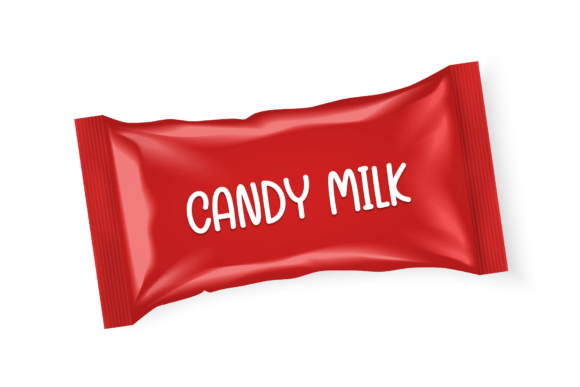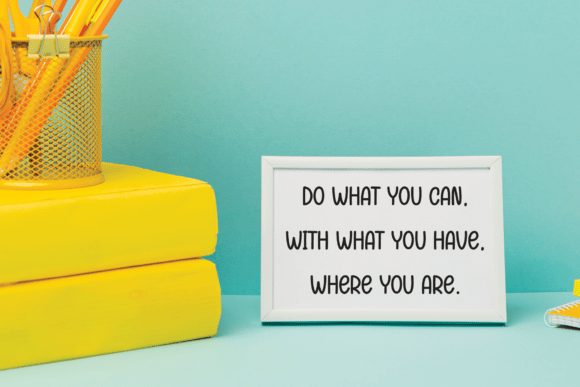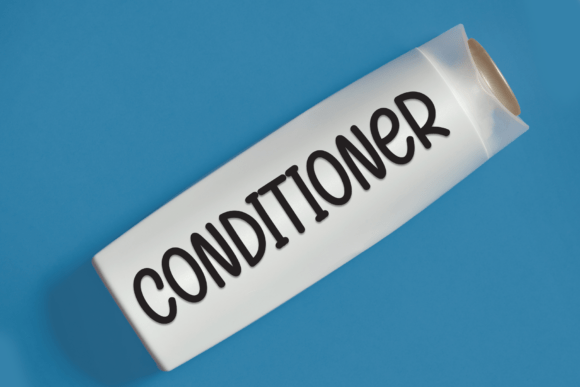
Introduction to Happy Harmony Font
As designers, we’ve all been there – staring at a blank canvas, trying to conjure up the perfect visual representation of our creative vision. Sometimes, it’s just a matter of finding the right font to set the tone for our project. For those looking for a font that radiates warmth and approachability, look no further than the Happy Harmony Font.
This beautiful, casual display font is perfect for designers seeking a high-quality design resource that exudes friendliness and clarity. With its clean lines and relaxed structure, Happy Harmony Font adds charm and polish to any creative project, making it an ideal choice for packaging, posters, and social media graphics. And the best part? It’s available for free download, complete with a transparent background, making it easy to incorporate into your design.
Key Features of Happy Harmony Font
- Unique Blend of Modern and Whimsical Elements: The Happy Harmony Font combines modern typography with whimsical illustrations, making it perfect for creative projects that require a touch of personality.
- Transparent Background: With a transparent background, designers can easily layer the font over images or other design elements, creating a seamless and professional look.
- Perfect for Various Projects: This font is ideal for use in a variety of creative projects, from children’s books and greeting cards to branding and marketing materials.
Honest Review: Happy Harmony Font
- What works well:
- ✨ The font’s high quality is evident in its crisp, clean lines and beautiful typography.
- ✨ It’s incredibly versatile and works well for a wide range of creative projects, from logo design to editorial content.
- ✨ The transparent background makes it easy to layer over images and other design elements.
- ⚠️ The font only comes in a few weights, which may limit its usability for complex designs.
- ⚠️ Some users may find the font’s style a bit too playful or whimsical for certain projects.
Overall, I’m really impressed with the Happy Harmony Font. It’s a fantastic design resource that’s perfect for designers looking for a high-quality, free font. While it may not be the best choice for every project, it’s definitely a great addition to any designer’s toolkit.
Tips for Getting the Most Out of the Happy Harmony Font
The Happy Harmony Font is ideal for a variety of creative projects, including presentations, documents, and social media graphics. It’s also great for use in branding and marketing materials, such as logos and business cards.